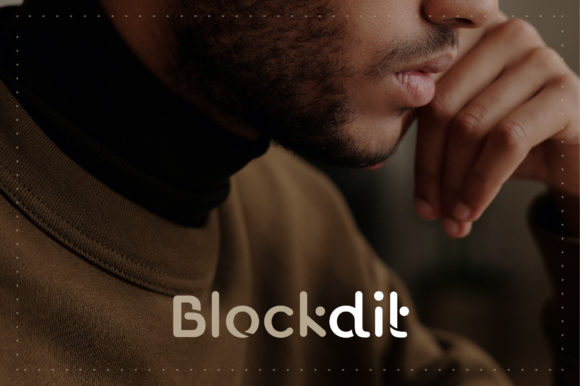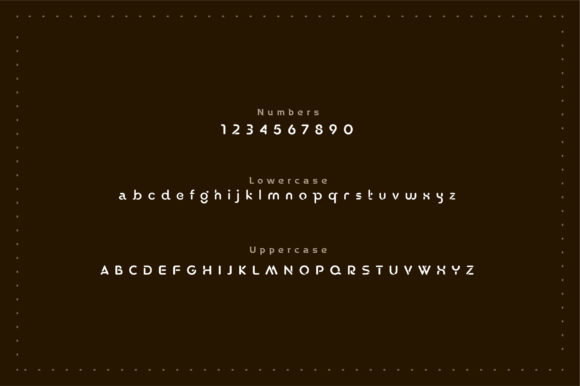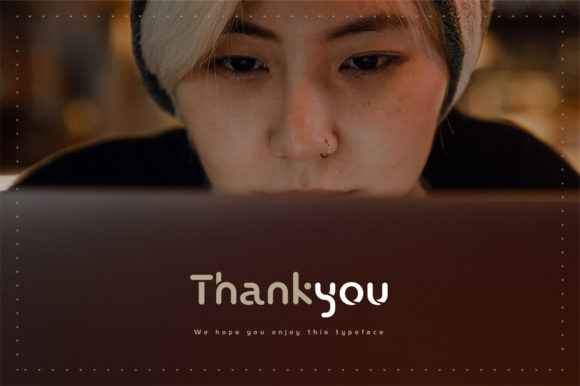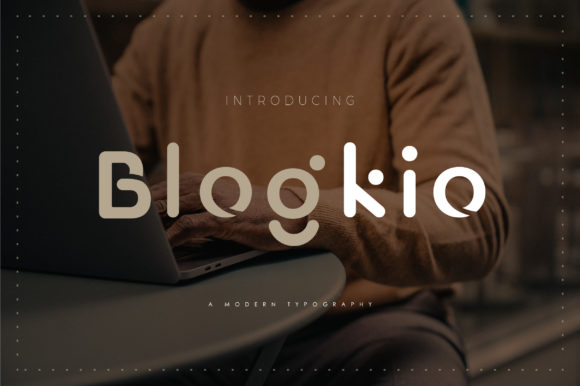
The Ultimate Guide to Blogkio Font: Elevate Your Designs with Style
I’ll never forget the time I was working on a project for a client who wanted a modern, minimalist look. I spent hours scrolling through font libraries, but nothing seemed quite right. That was until I stumbled upon Blogkio Font. ✨ This stylish, minimalistic, and incredibly distinct display font has been a game-changer for my designs, and I’m excited to share its endless possibilities with you.
An Honest Review of Blogkio Font
- ✅ Elegant and sophisticated design that’s perfect for headings and titles
- ✨ Highly versatile, with endless variations to suit different styles and themes
- 🔍 Beautifully crafted to ensure excellent readability, even at smaller sizes
While Blogkio Font is an excellent choice, there are a few things to keep in mind: 🤔
- ⚠️ Some users may find the font too delicate or refined for certain design applications
- ⚠️ Not ideal for body text or long-form content, as it’s best suited for display purposes
A Practical Guide to Using Blogkio Font
- Experiment with OpenType features, such as glyphs and stylistic alternates, to add visual interest
- Take advantage of OpenType features, such as ligatures and stylistic sets, to enhance your design
- Use the font for headings and titles to add visual interest to your documents
The Backstory Behind Blogkio Font
Blogkio Font was designed with the modern creative in mind. Its creator aimed to craft a font that was both stylish and versatile, perfect for bloggers, designers, and crafters looking to elevate their visual identity. 💻
The design process involved experimenting with different shapes and lines to create a unique, minimalist aesthetic. The result is a font that’s both beautiful and functional, with a range of applications across various design platforms.
Q: What makes Blogkio Font unique?
A: Blogkio Font stands out for its elegant, minimalist design and highly versatile nature, making it perfect for a range of design applications.
Q: Is Blogkio Font suitable for body text?
A: No, Blogkio Font is best suited for display purposes, such as headings and titles, due to its delicate design.